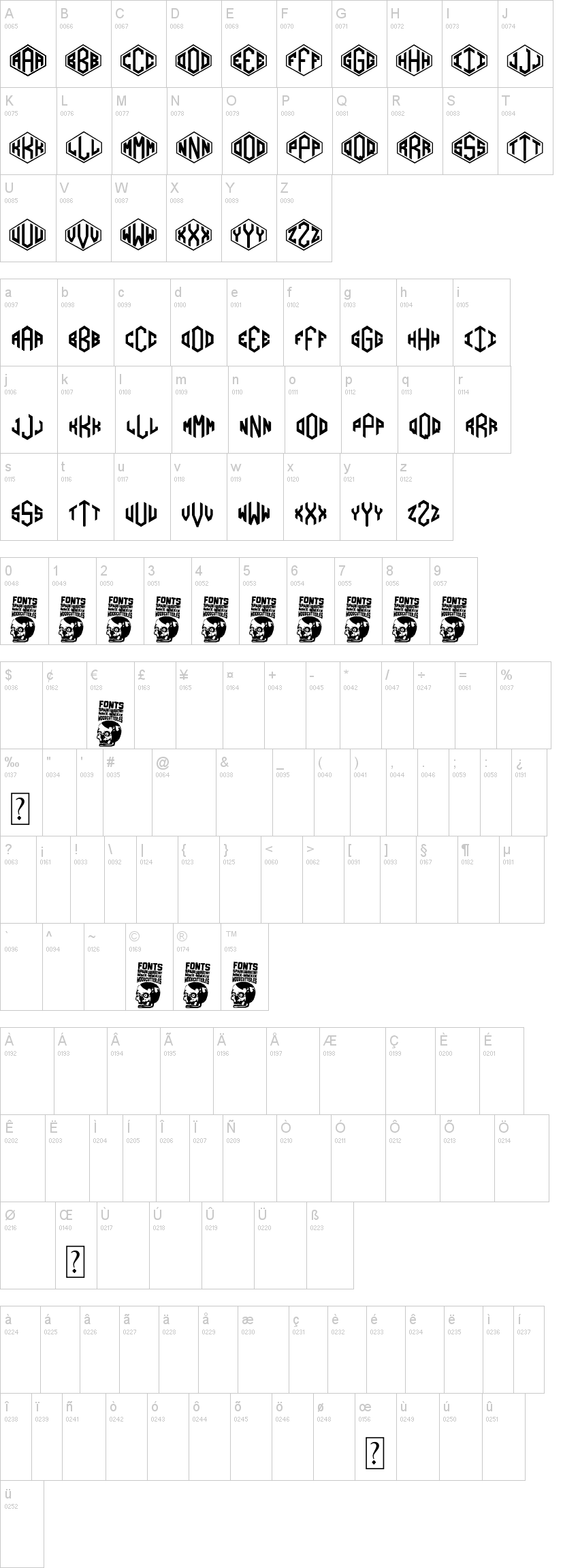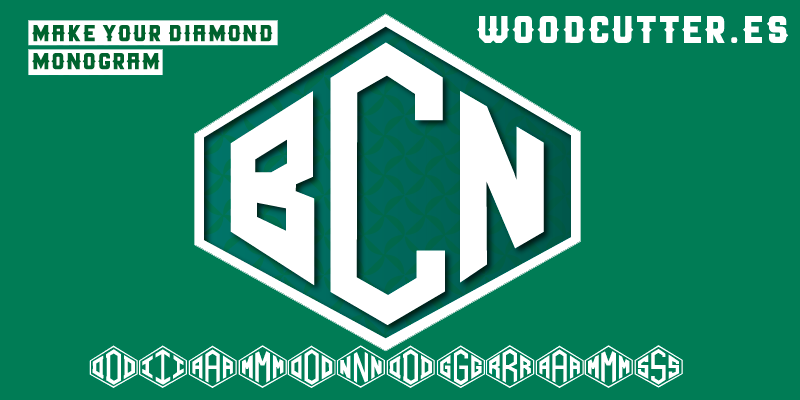
4 fonts for make your DIAMOND MONOGRAM.
1----DIAMONDGRAMS dEMO COMPLETE DIAMOND MONOGRAM
2----DIAMONDGRAMS Left letters
3----DIAMONDGRAMS Center letters
4----DIAMONDGRAMS Right letters and HEXAGON